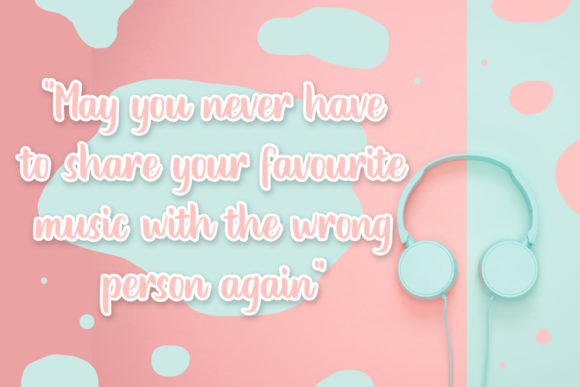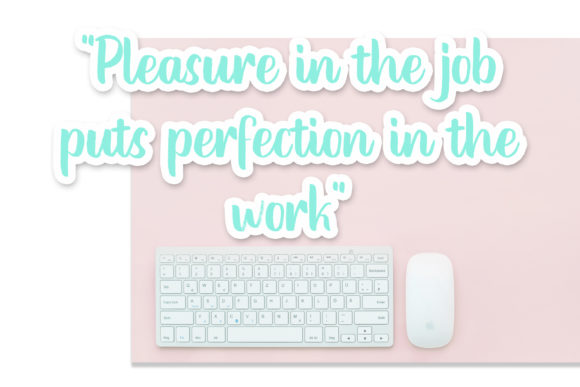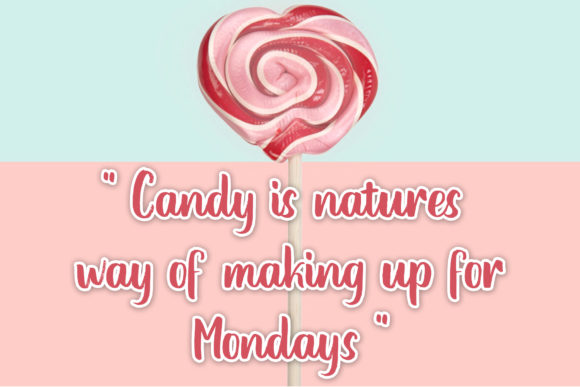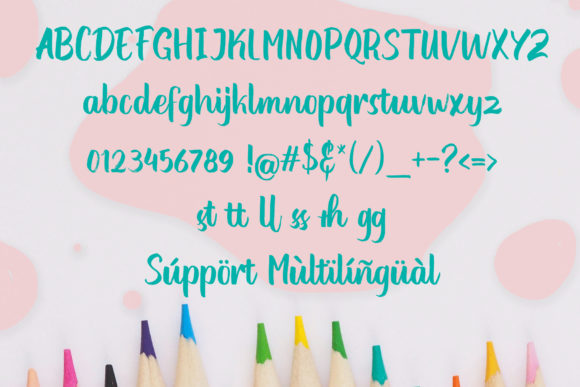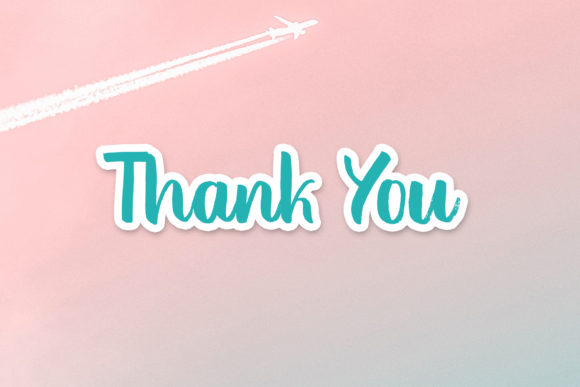
HomeScript FontsMoontells Font Script Fonts Moontells Font FacebookXPinterestWhatsApp Moontells Font Poster 2 Moontells Font Poster 3 Moontells Font Poster 4 Moontells Font Poster 5 Moontells Font Poster 6 About Moontells Font Moontells is a playful and joyful handwritten font. Fall in love with its quirky look & feel! DOWNLOAD ON CREATIVE FABRICAThis font is sold and delivered by Creative Fabrica. Font Canyon may earn a commission if you buy through this link. People also explored Creative Designer Font Happy Festival Font Monster Drip Font Family Font Heraldic Devices Font Unpossed Font Natural Font Becham Font Bloomed Duo Font 308 0 TagsMoontells Font Previous articleHeart FontNext articleNadilla Font LEAVE A REPLY Cancel reply Comment: Please enter your comment! Name:* Please enter your name here Email:* You have entered an incorrect email address! Please enter your email address here Website: Save my name, email, and website in this browser for the next time I comment. Personal Use Free Geracella Personal Use Free Read more about this font Pinky Personal Use Free Read more about this font Street Cred Personal Use Free Read more about this font Unlock Endless Creativity with the FREE September Clipart Huge Bundle (Valued at $700!) Personal Use Free Read more about this font BLOG Best Fonts for T-Shirt Design – Top 2025 Picks In 2025, t-shirt design has become more than just fashion—it's a form of self-expression. Whether you're... The 10 Best Handwriting Fonts to Add Personality to Your Designs Top 7 Google Fonts Alternatives for Faster and Privacy-Friendly Web Design (2025) How to Cut Any Font on Cricut: Convert a Font to SVG (Free)